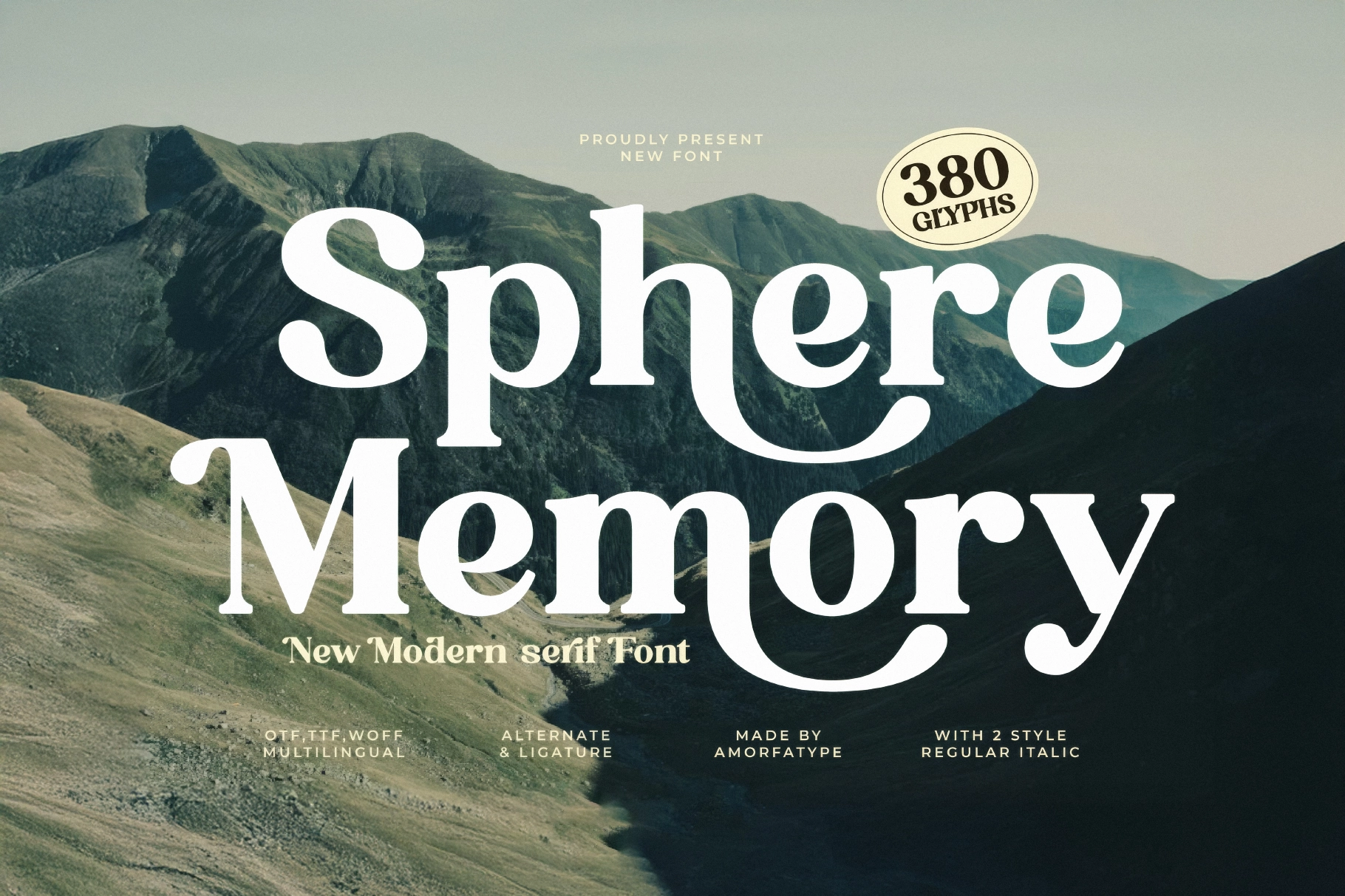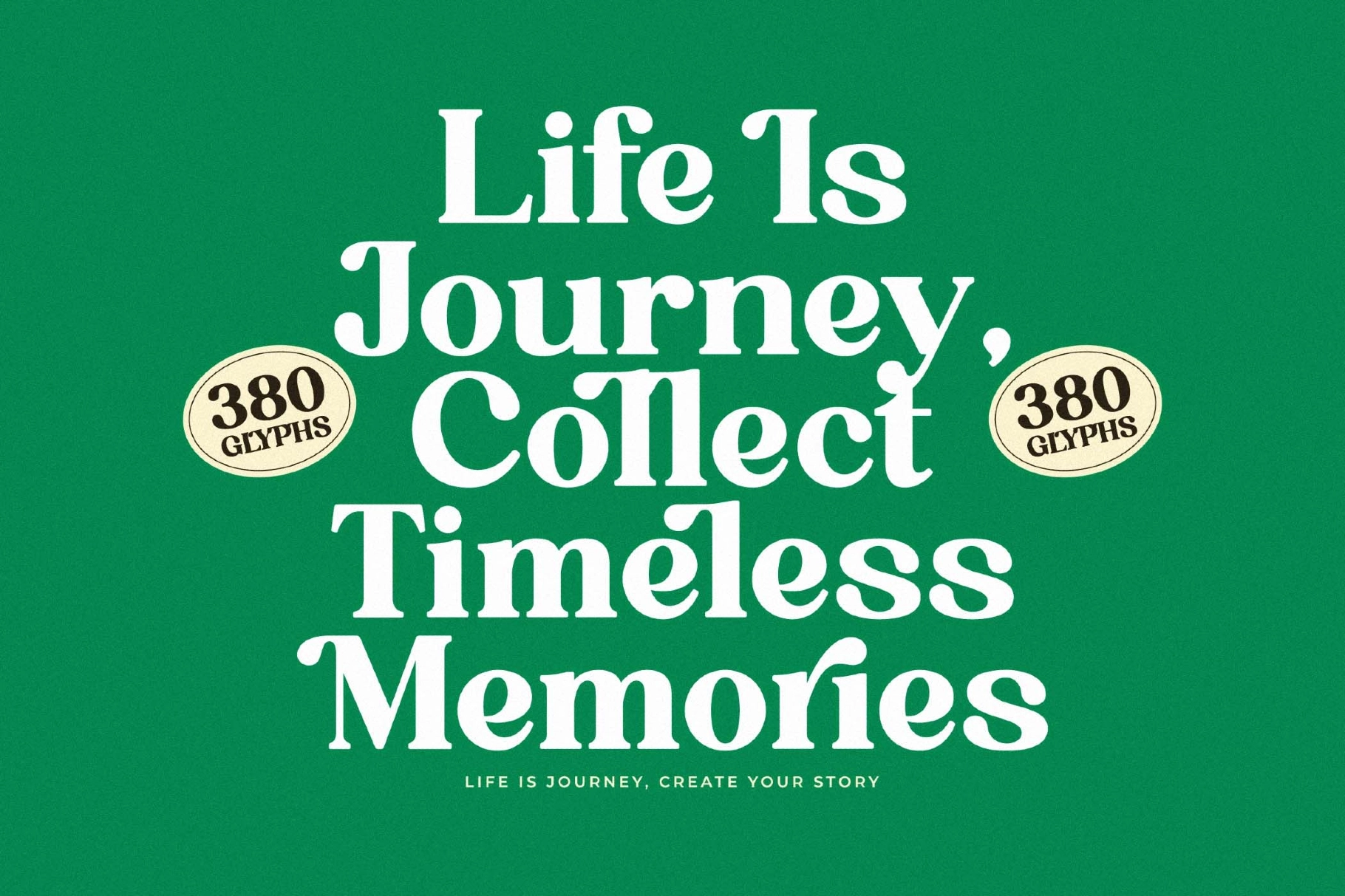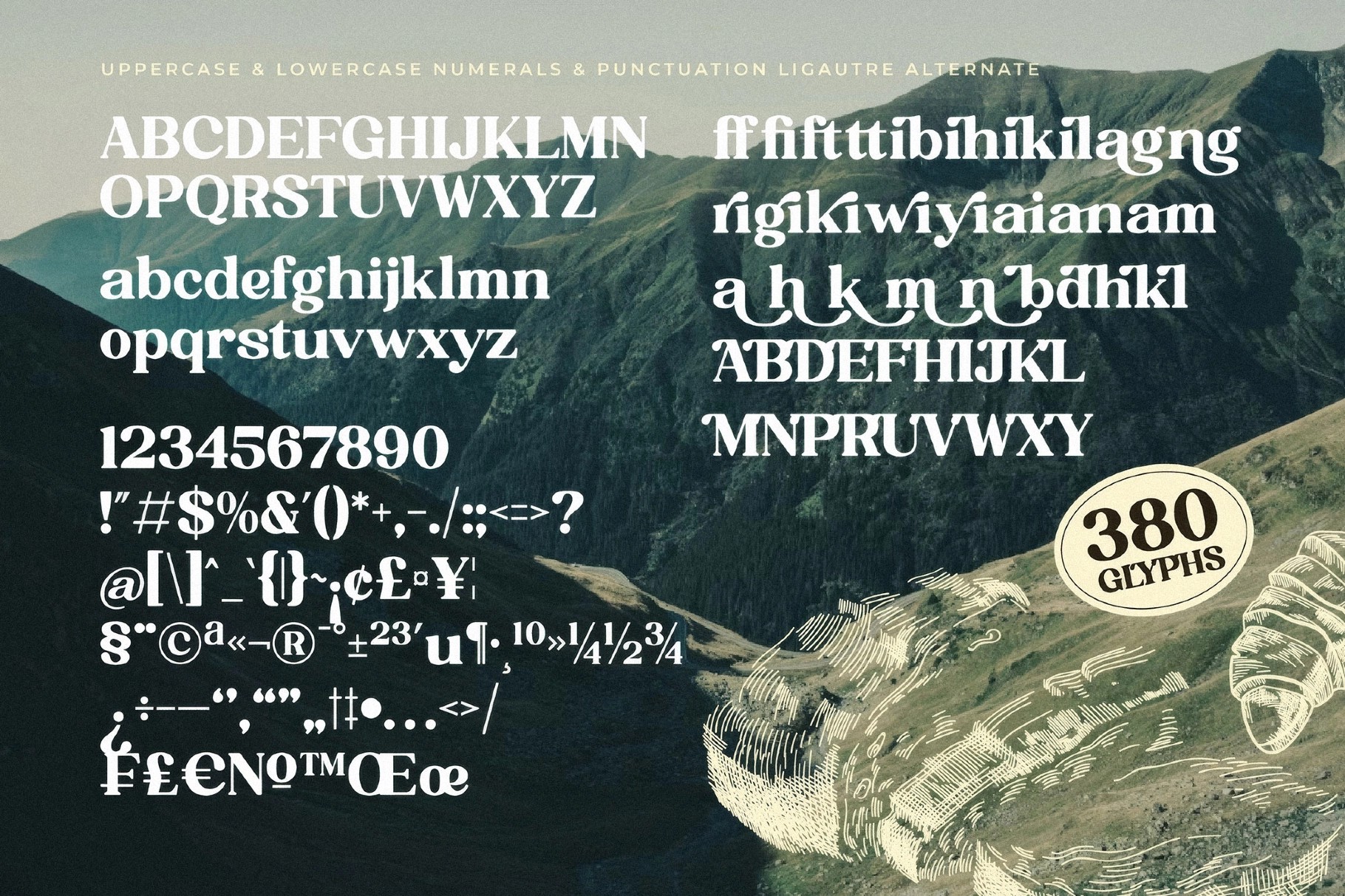
Sphere Memory - Bold Modern Serif Font
Sphere Memory pairs dramatic stroke contrast with looping swash curls that swing under the lowercase j's, g's, and y's, giving this bold modern serif font a retro, hand-signed character. The curls read confident at large display sizes and settle into a steady rhythm in shorter headline settings, landing somewhere between a vintage record label and a hand-carved shop sign.
Sphere Memory works best in short, punchy settings where the swashes have room to swing.
Use it for logos, magazine mastheads, feature titles, record labels, boutique branding, candle and bottle packaging, concert posters, market signage, tote bags, and apparel prints.